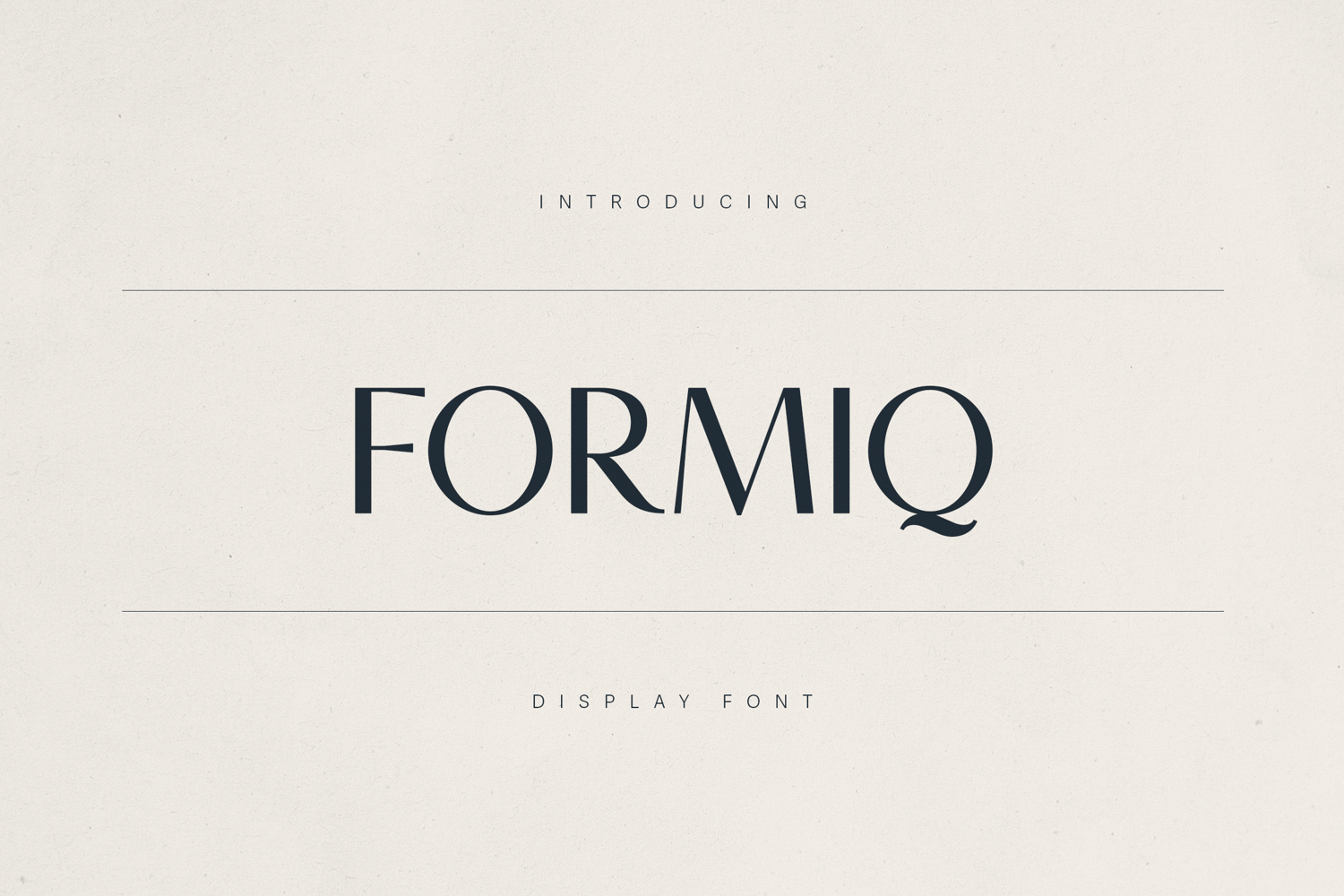
Formiq - elegant display font
Formiq is a sophisticated high-contrast display serif that blends modern elegance with timeless typographic craftsmanship. Its sleek, elongated letterforms and subtle geometric influences give it a distinctive presence, while delicate tapering and sharp serifs add a touch of refinement. The font balances minimalism with personality—perfect for upscale branding, editorial headlines, boutique packaging, and refined digital experiences.
With extensive multilingual support, a full set of punctuation, and beautifully considered proportions, Formiq thrives in both large-scale statement typography and smaller, detail-driven applications. Whether paired with minimal layouts or layered into rich, atmospheric designs, Formiq communicates luxury, confidence, and modern sophistication.